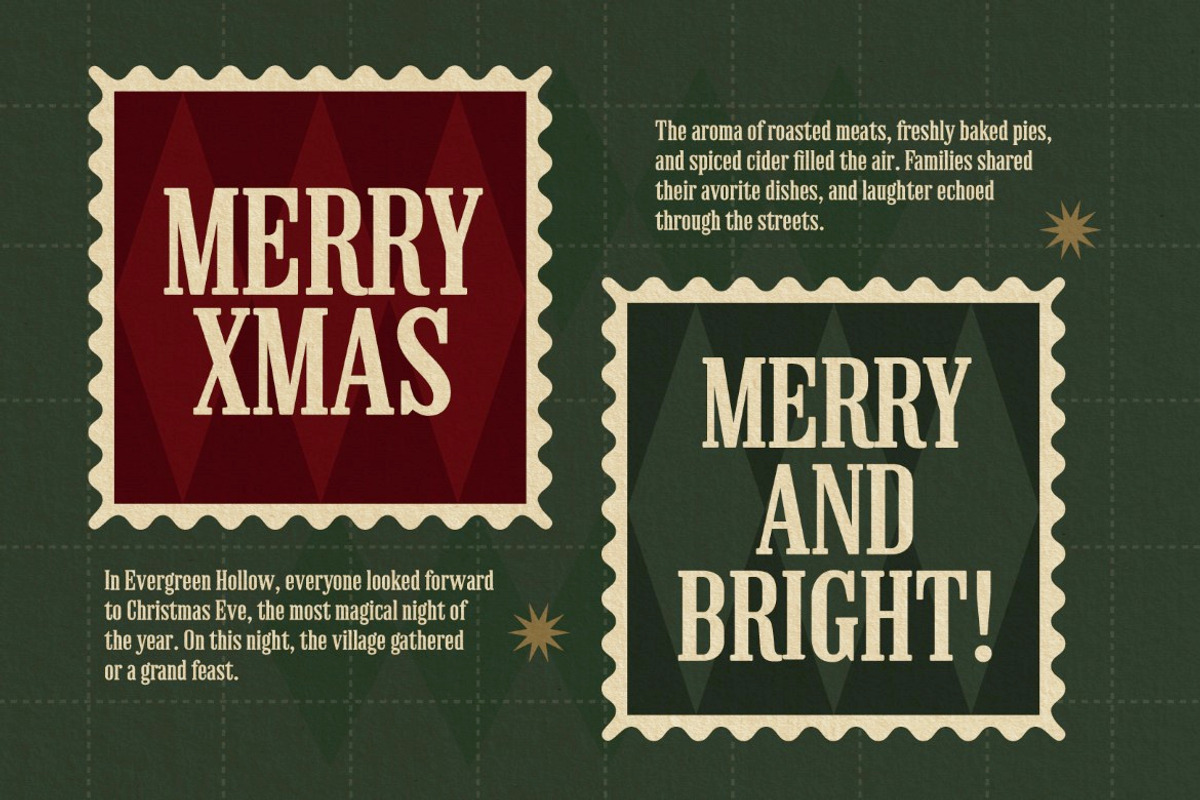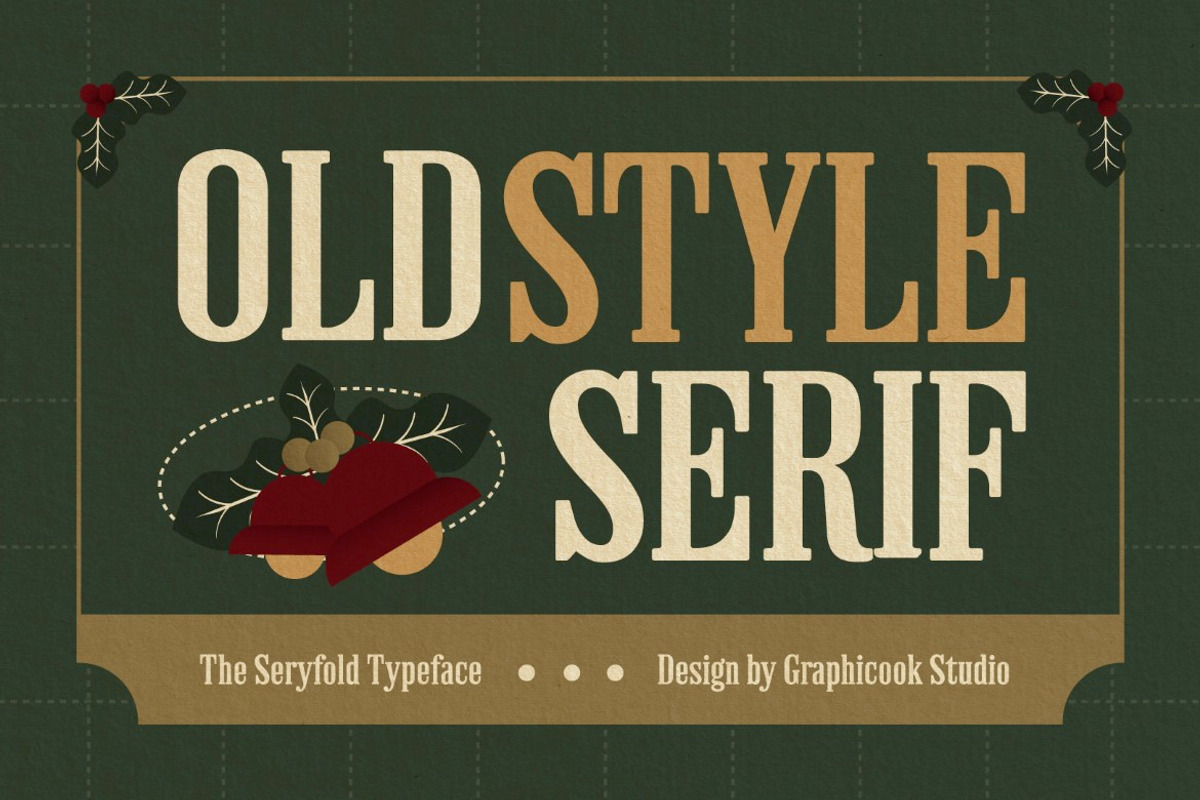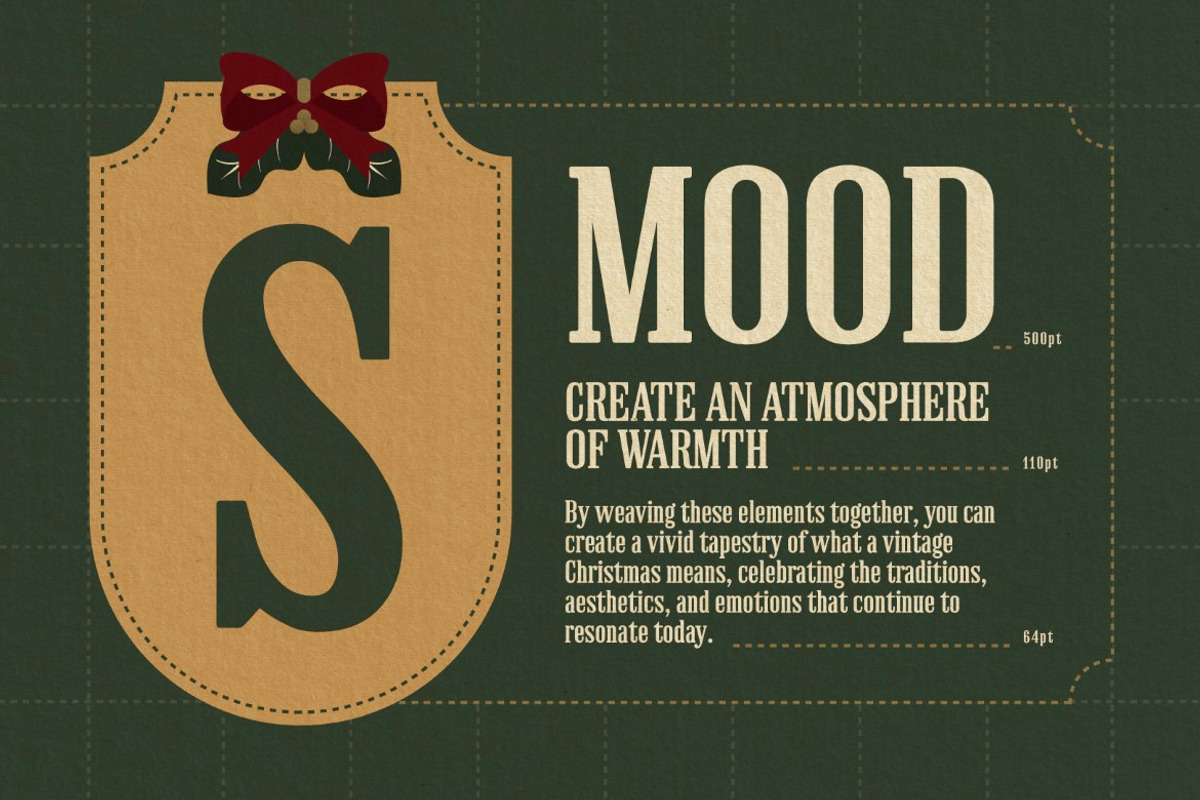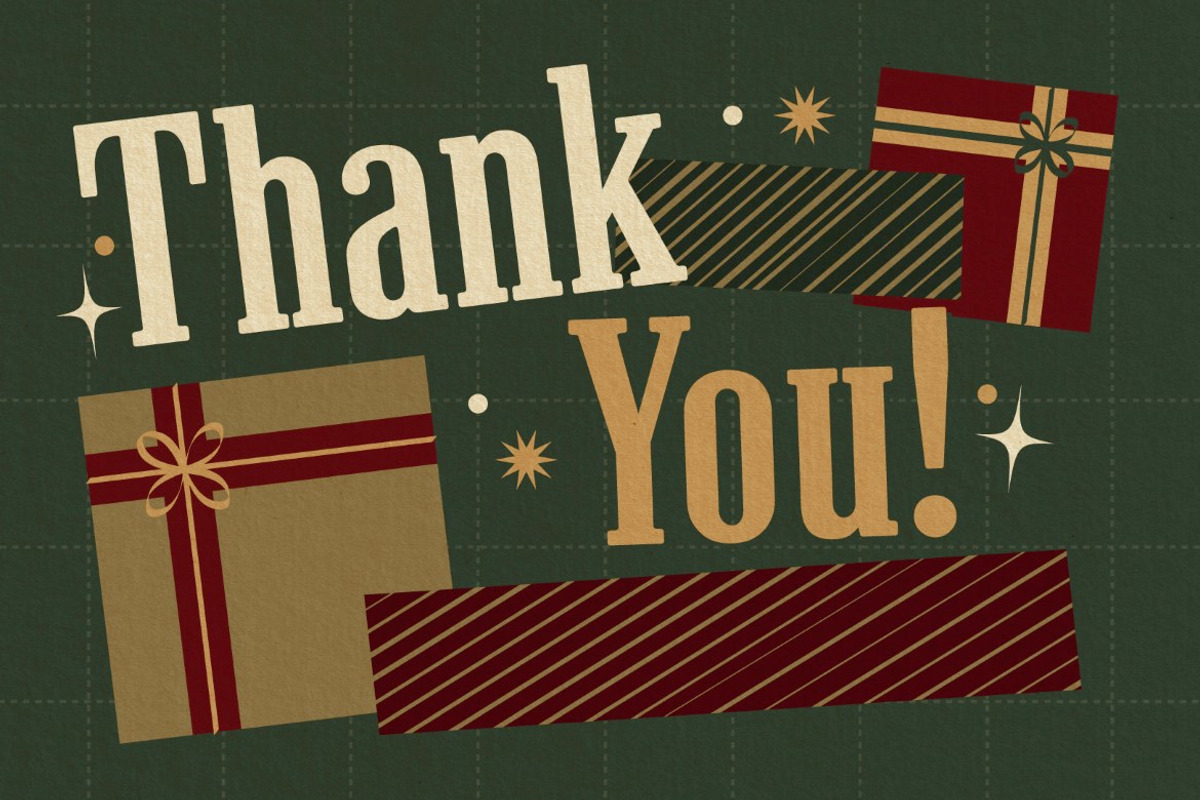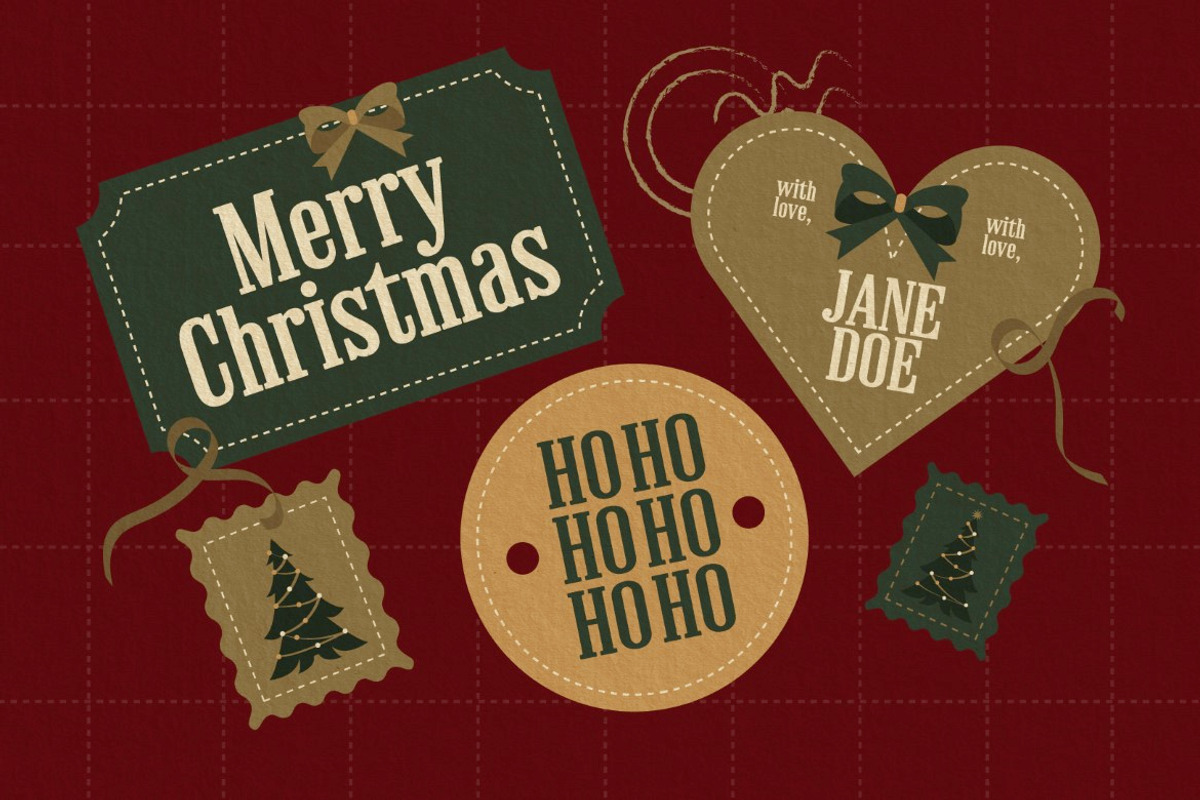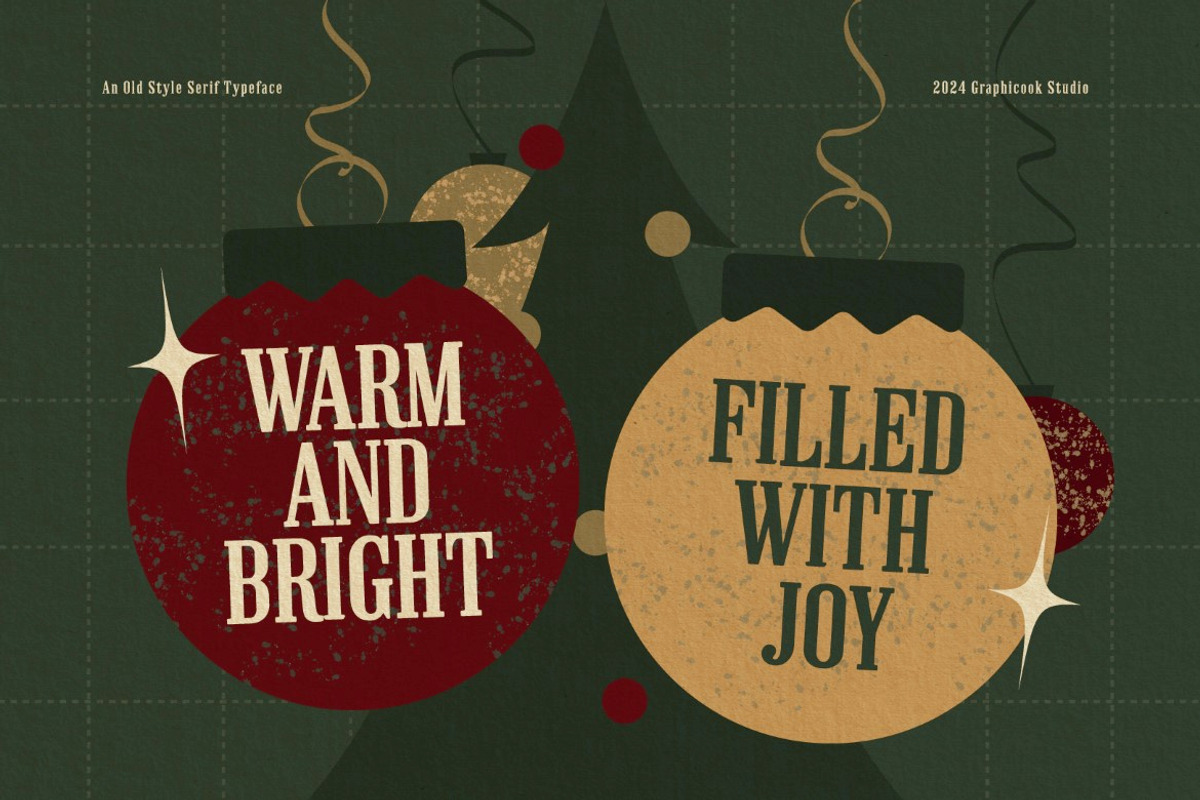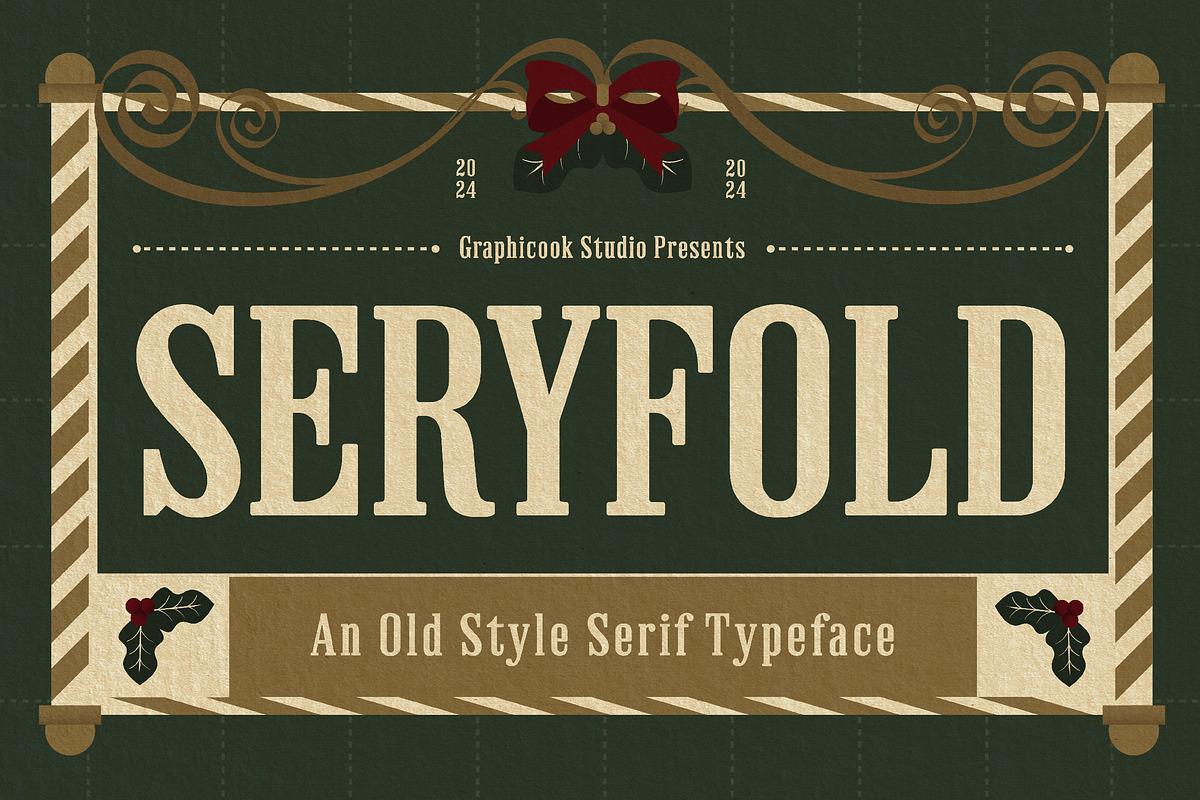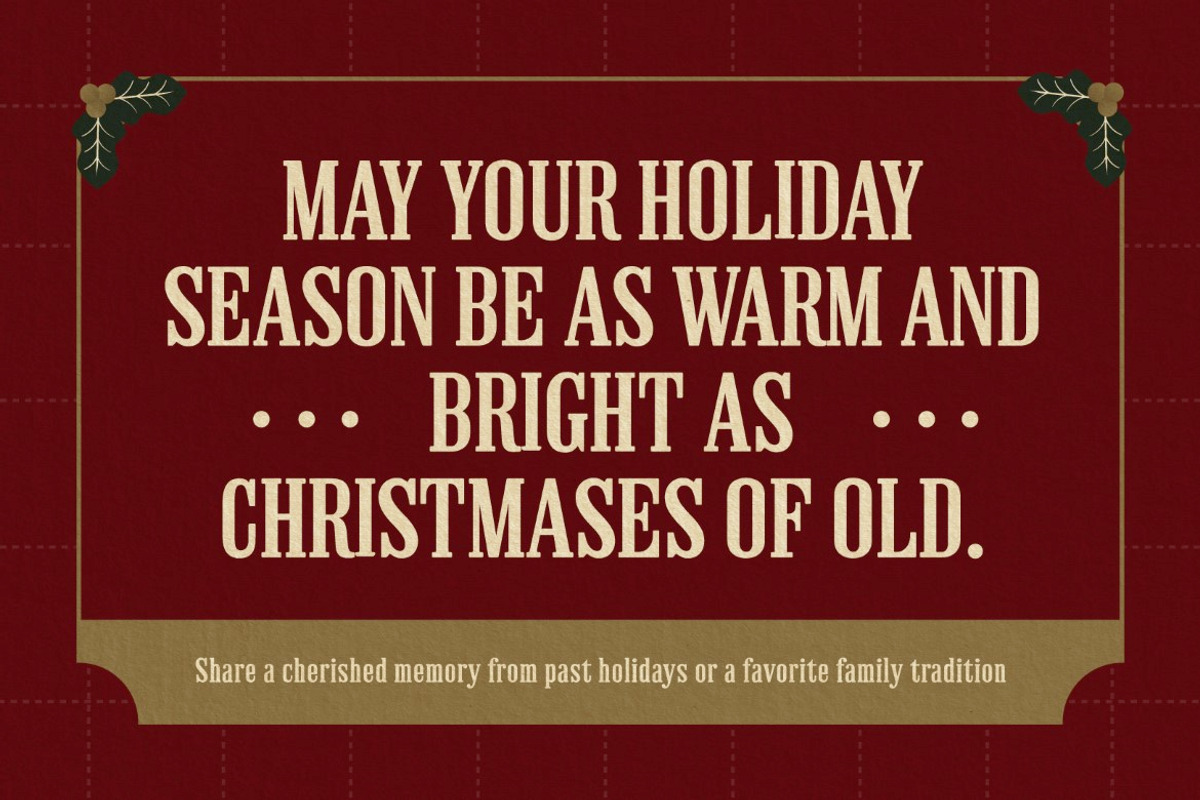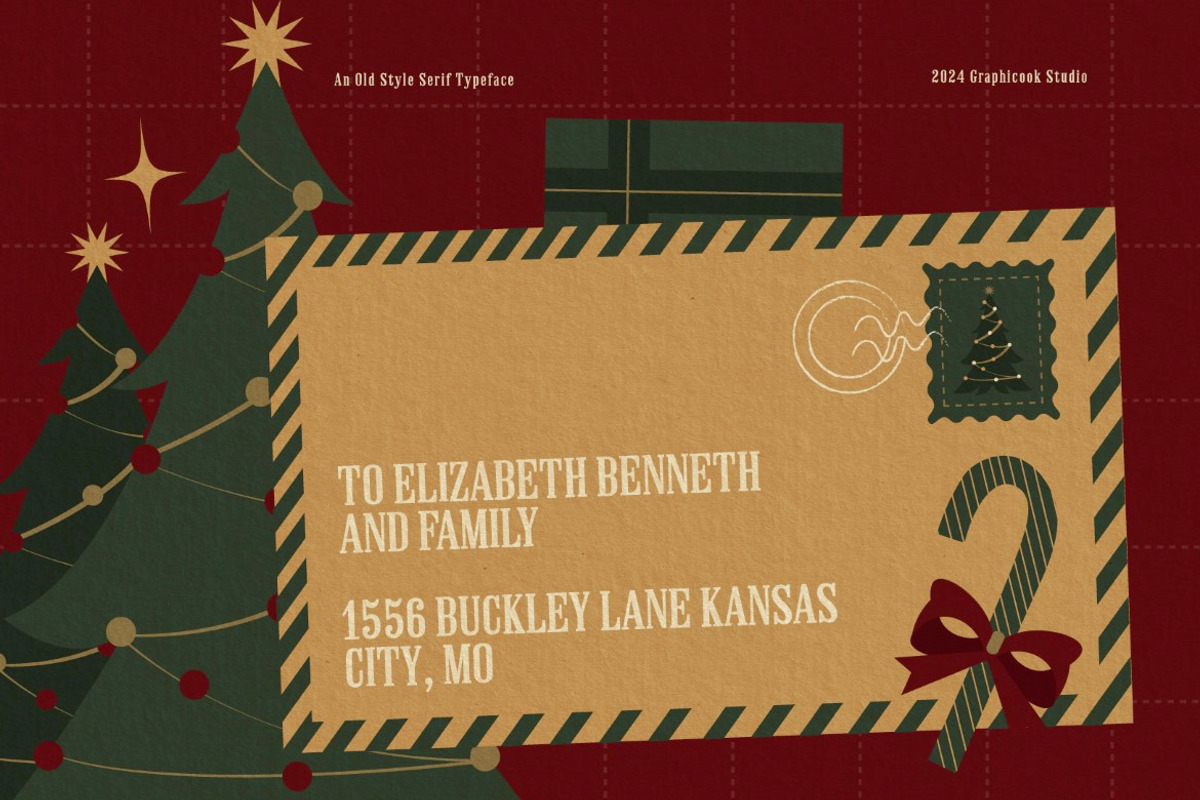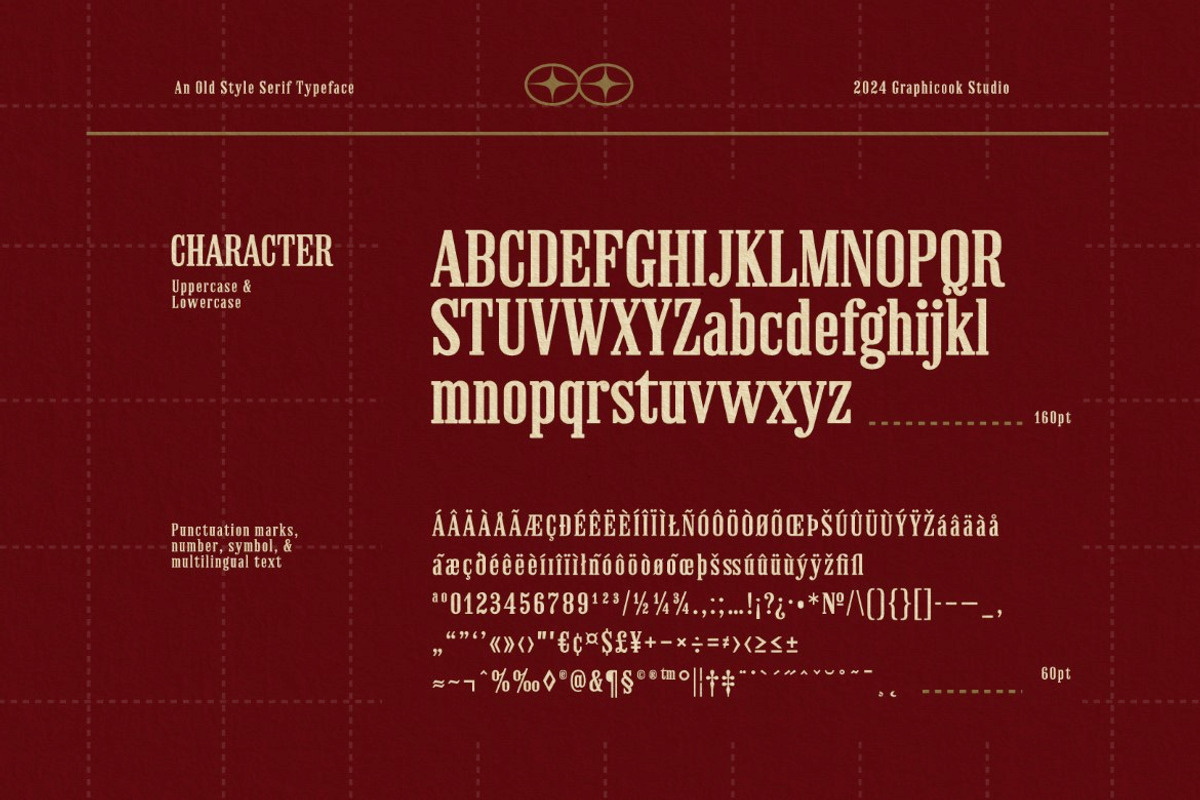
Seryfold
With a combo of serif and old-style design, Seryfold brings a nostalgic Christmas feel, ideal for editorials, posters, magazines, and festive social media posts.
Seryfold is perfect for headlines, logotypes, magazines, packaging, quotes, movies, games, cover albums, book covers, and flyers, it's a perfect solution for creating eye-catching designs that stand out in any context.
by Graphicook